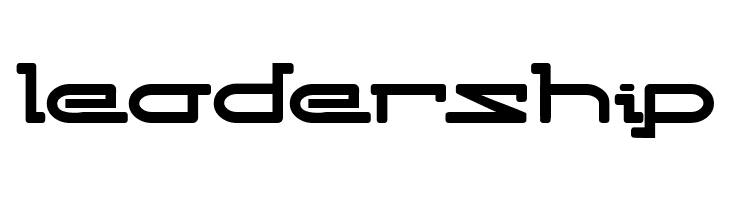
• Comonsregular
A bold, dynamic font with a slight slant and rounded edges.
A bold, decorative font with geometric shapes and intricate borders, ideal for impactful display use.
• Compass LT
A modern, geometric sans-serif font with clean lines and balanced spacing.
• Compass Regular
A decorative font with intricate geometric patterns and bold, framed letters.
• Competent